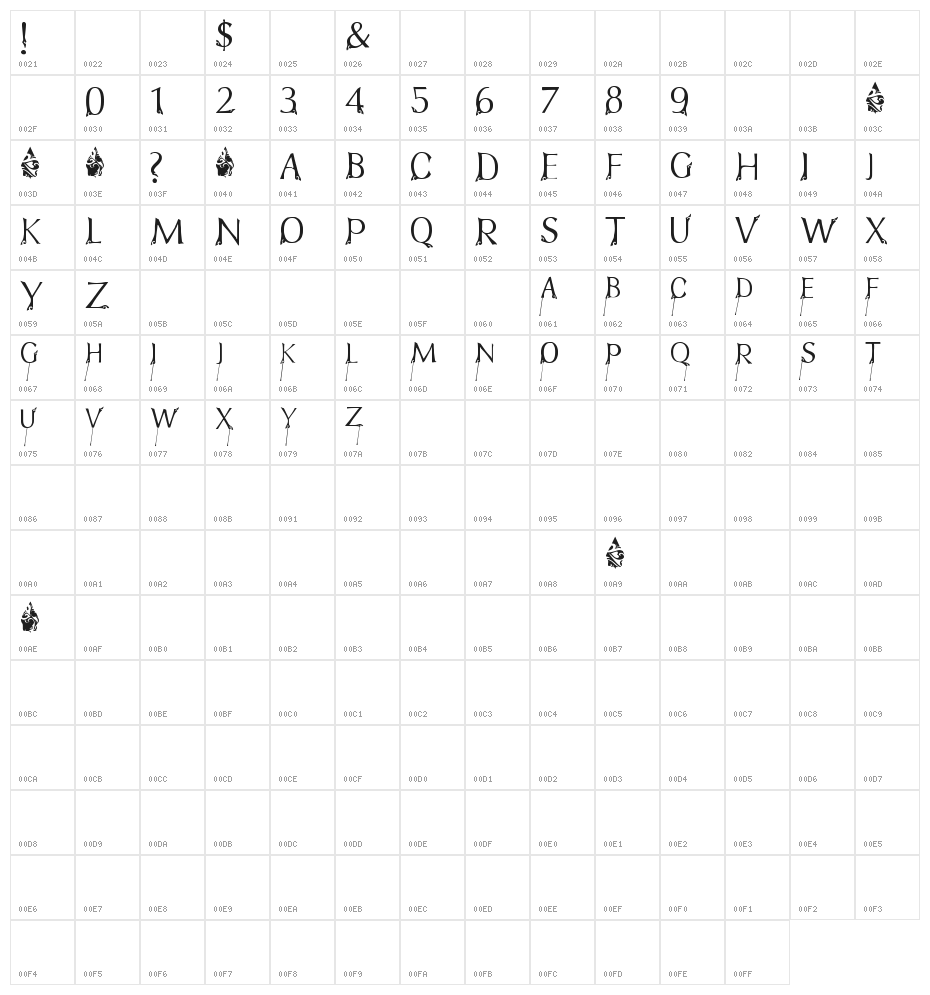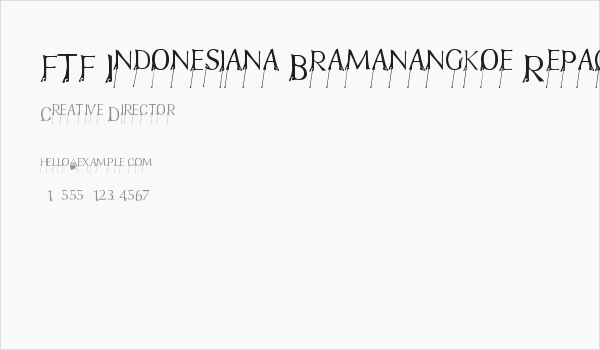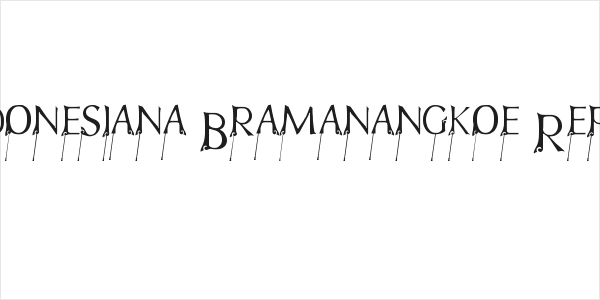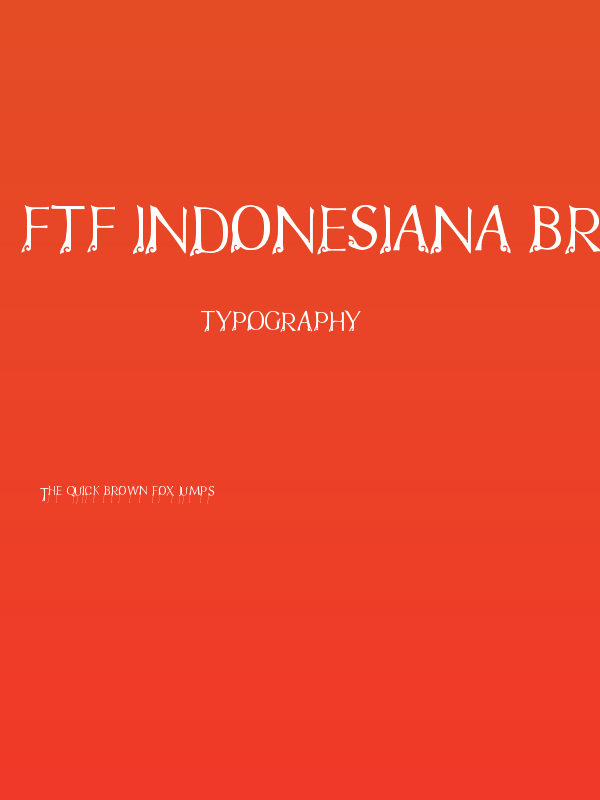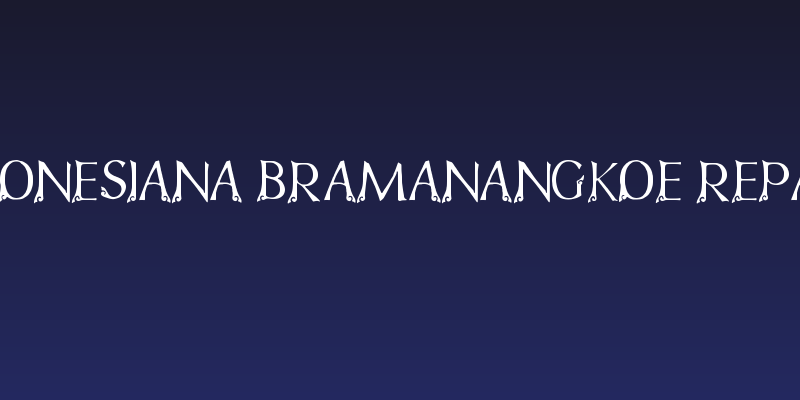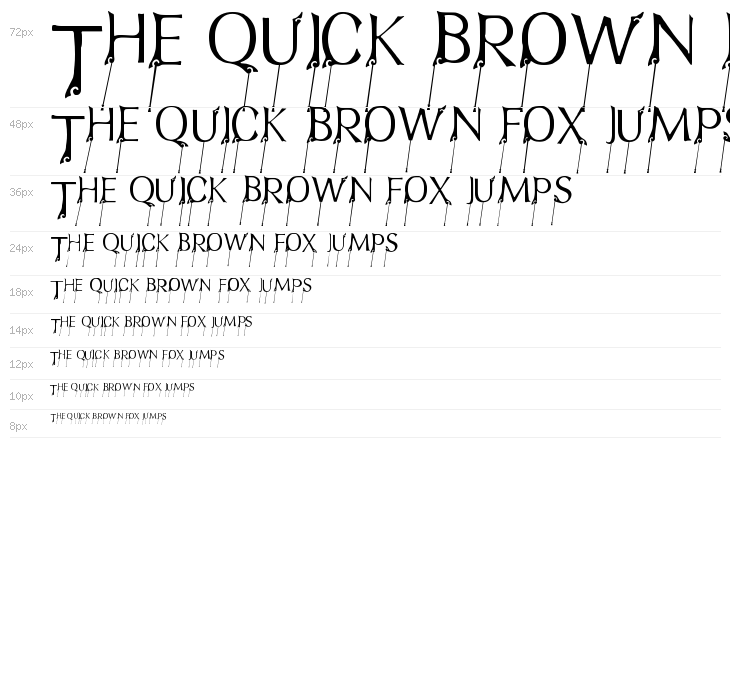
FTF Indonesiana Bramanangkoe Repackage Font
FTF Indonesiana Bramanangkoe Repackage Description
This font features an elegant and decorative style with unique, artistic flourishes on each character. The uppercase letters are bold and striking, with intricate details that give them a distinctive, ornamental appearance. The lowercase letters maintain a similar aesthetic, offering a cohesive look across the typeface. The numbers and special characters are designed with the same attention to detail, ensuring consistency throughout. The overall design is reminiscent of traditional calligraphy, yet it maintains a modern flair, making it suitable for a variety of creative projects.
| Proposed Projects | Ideal for wedding invitations, luxury branding, artistic posters, and decorative headlines. |